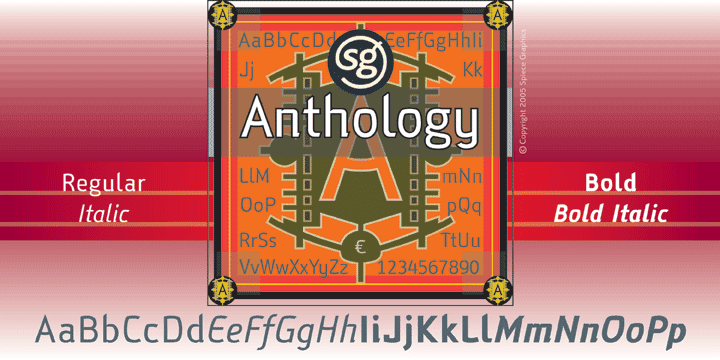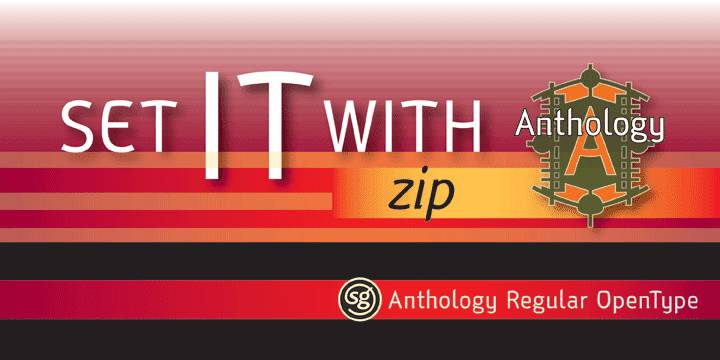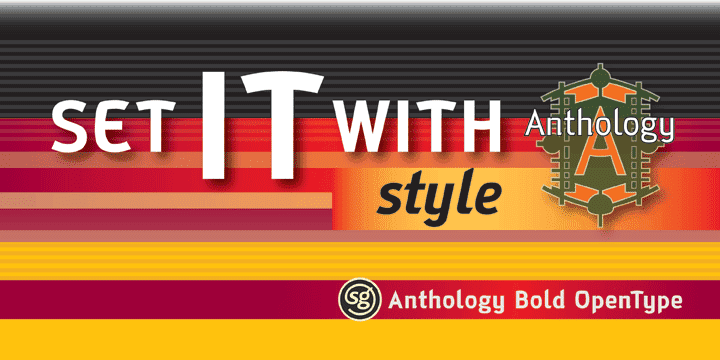
Anthology is a contemporary design with a faintly mystical flavor. A curious collection of miscellaneous parts including blade-like curved crossbars, angle-cut serifs, and egg-shaped glyphs make for an intriguing futuristic blend. Great for games, science-fiction, or high-technology projects.
Anthology is now available in the OpenType Std format. Some additional characters have been added to this OpenType version as stylistic alternates. This advanced feature works in current versions of Adobe Creative Suite InDesign, Creative Suite Illustrator, and Quark XPress. Check for OpenType advanced feature support in other applications as it gradually becomes available with upgrades.